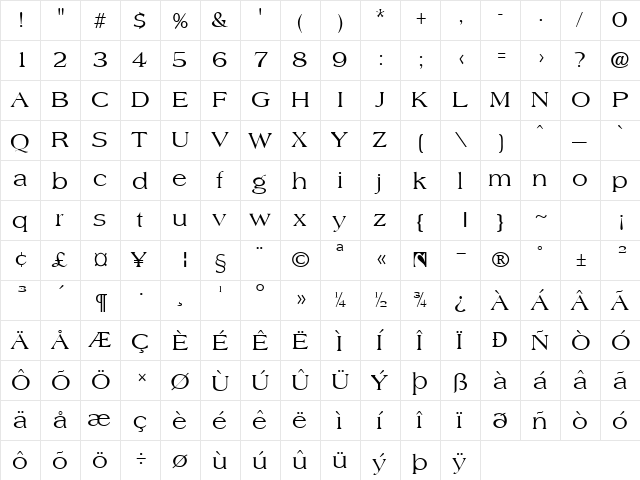
Aphid normal
Design Context for Aphid Typeface
Aphid offers clean, dependable letterforms without strong stylistic allegiance, making it a practical choice for designers who need flexibility.
Pro Tip: Use Aphid in both headline and body roles to test its range before committing to a single application.